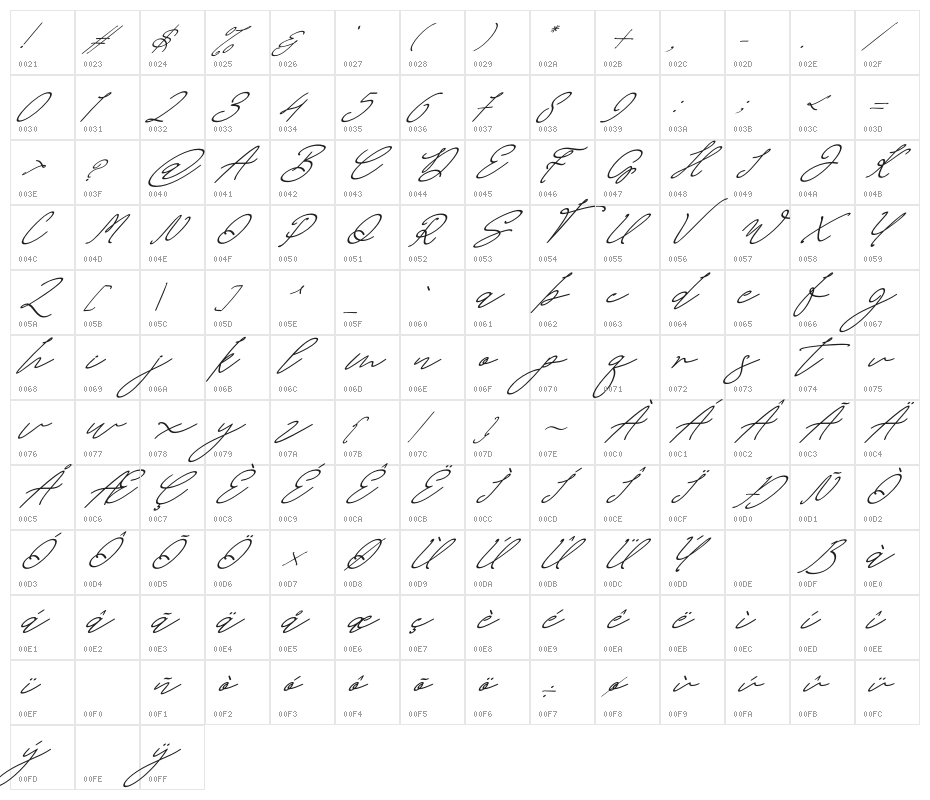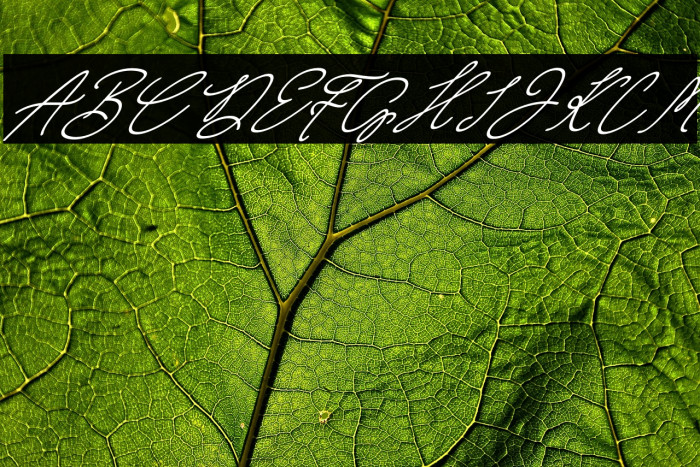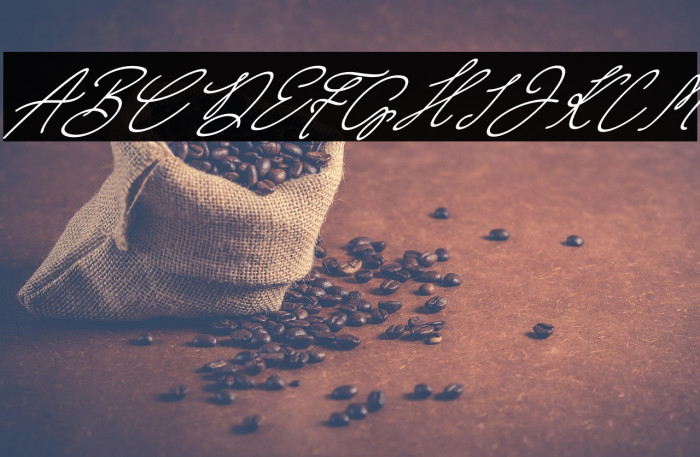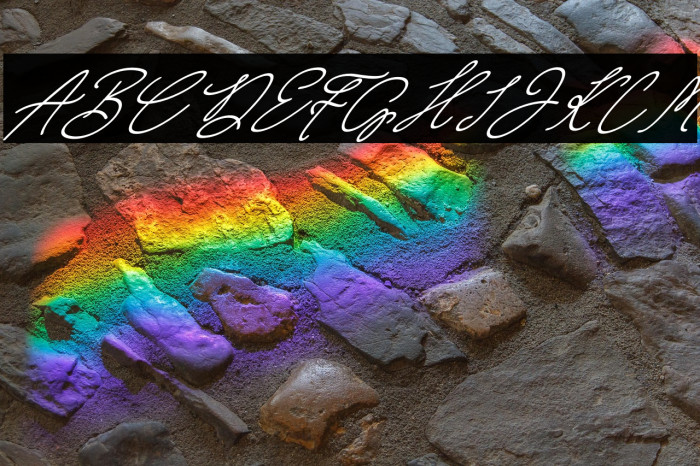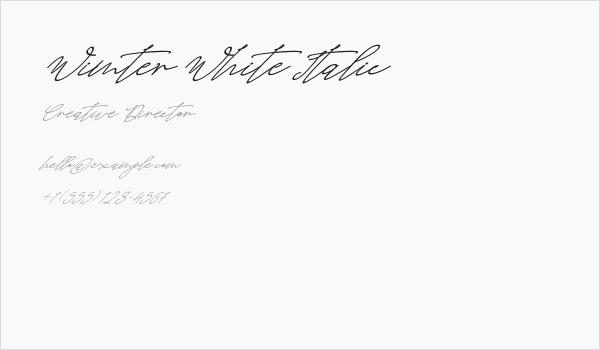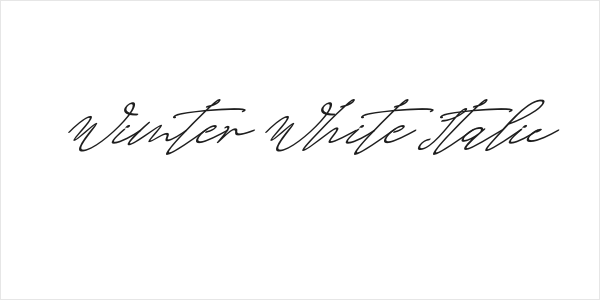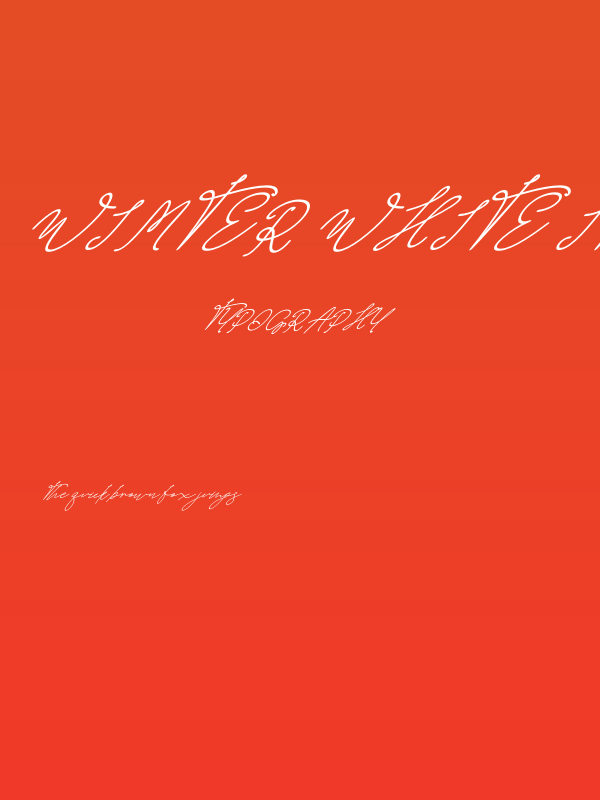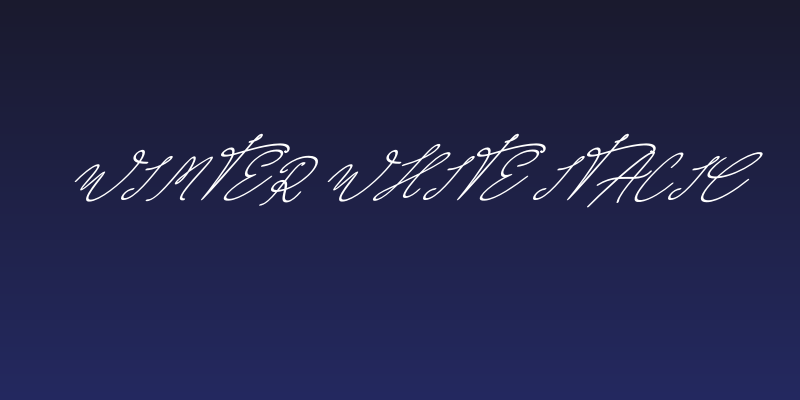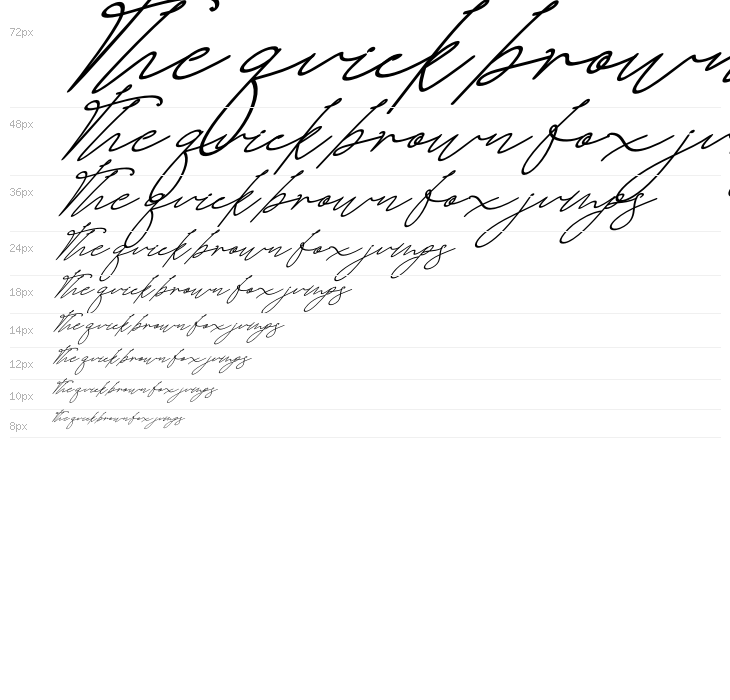
Wimter White Italic Font
Wimter White Italic Description
This elegant script font features a flowing, cursive style with a sophisticated flair. The characters are connected, creating a seamless and fluid appearance that mimics natural handwriting. The strokes are smooth and slightly slanted, adding to the dynamic and graceful look. Each letter is intricately designed with delicate curves and loops, giving it a refined and artistic feel. The font maintains a consistent stroke width, ensuring readability while preserving its decorative nature. It is well-suited for projects that require a touch of elegance and personal expression.
| Proposed Projects | Ideal for wedding invitations, greeting cards, personal branding, and elegant logos. |